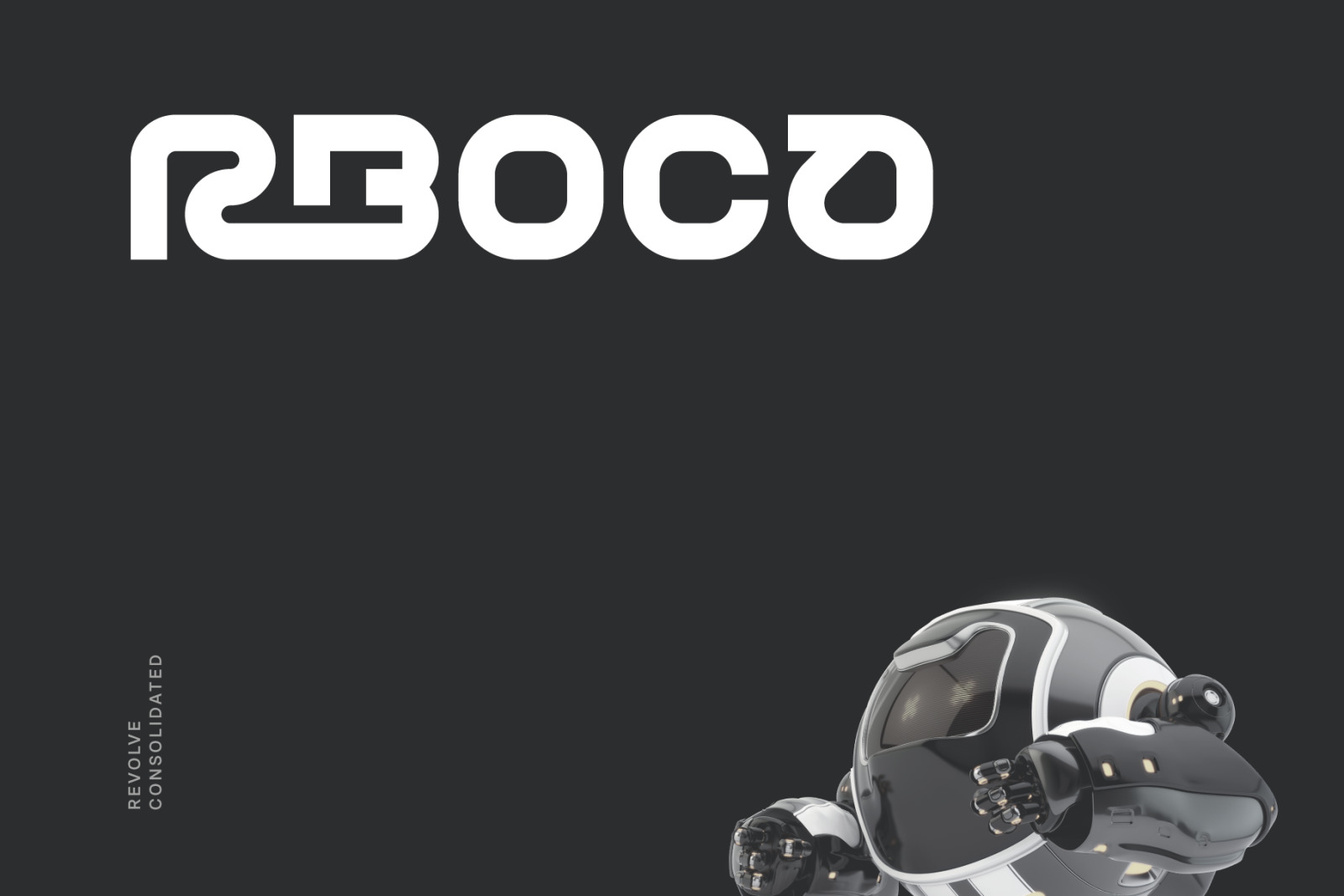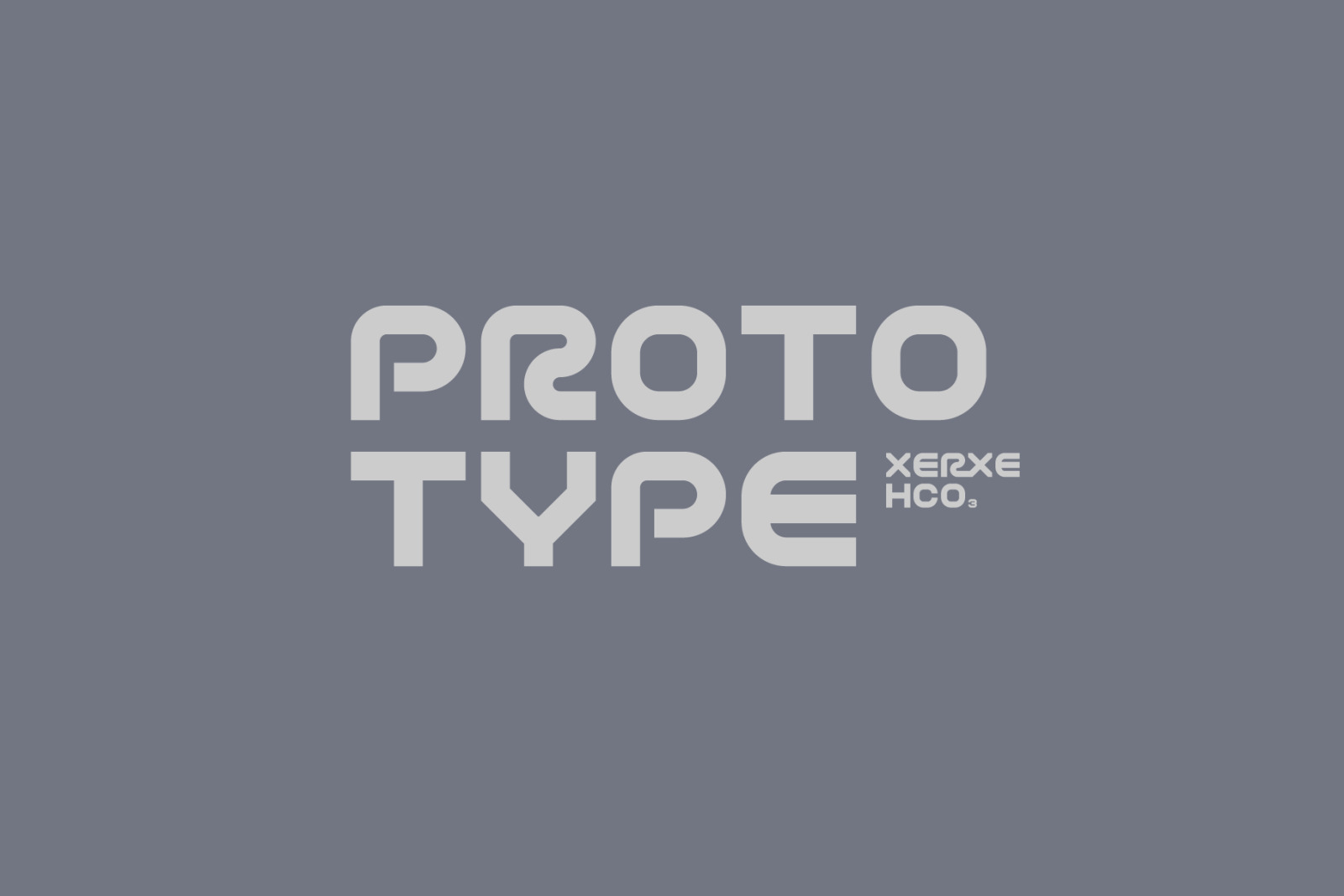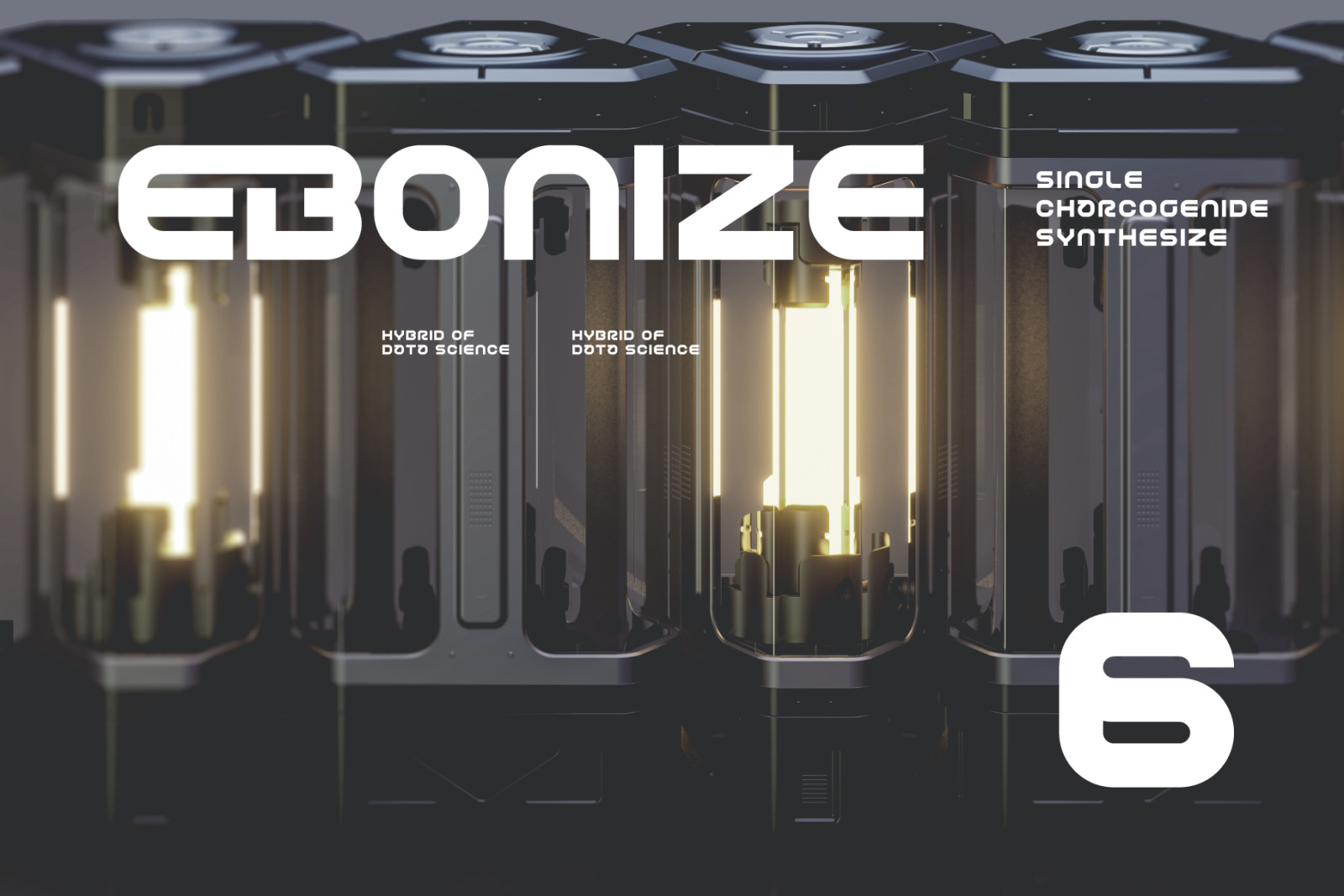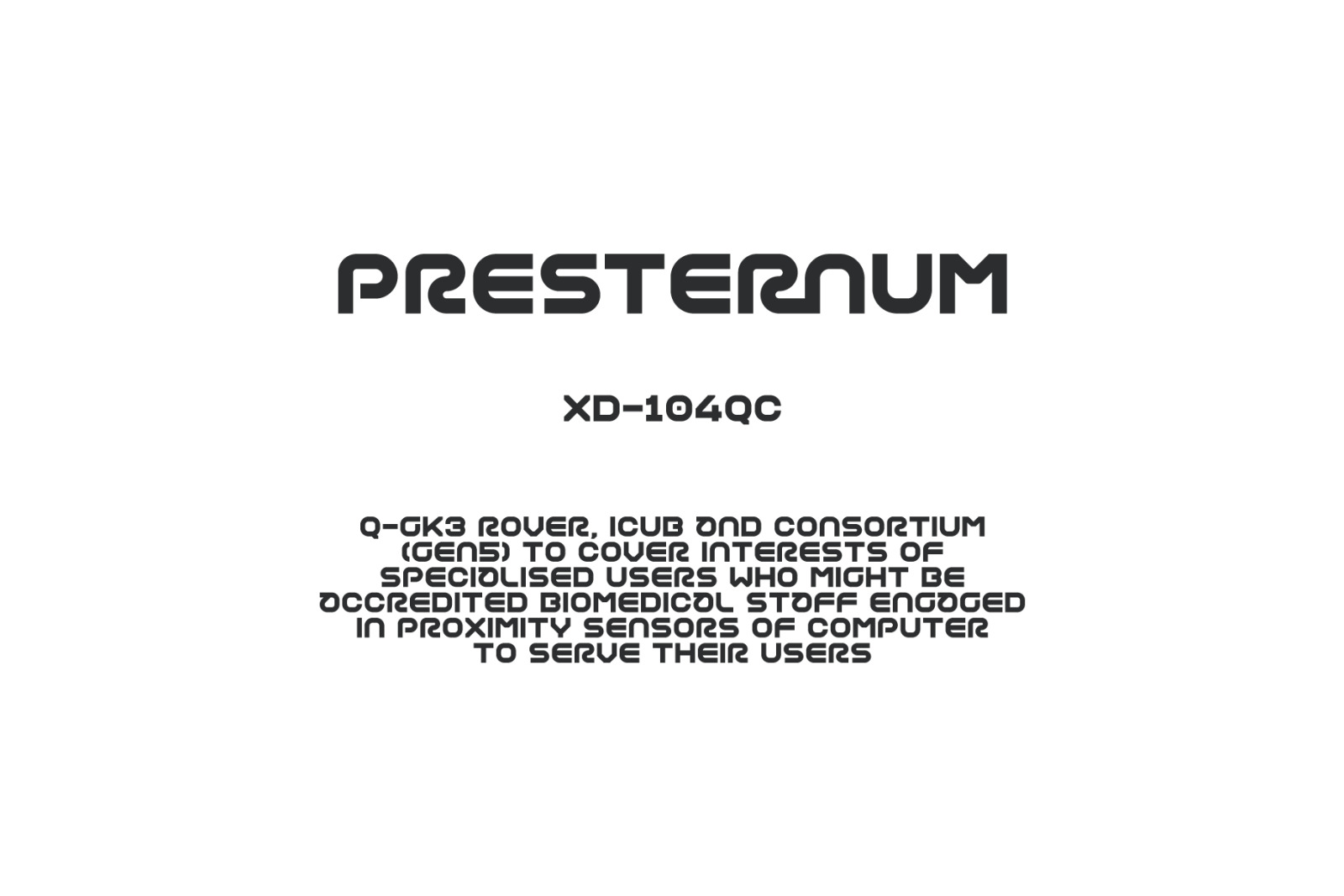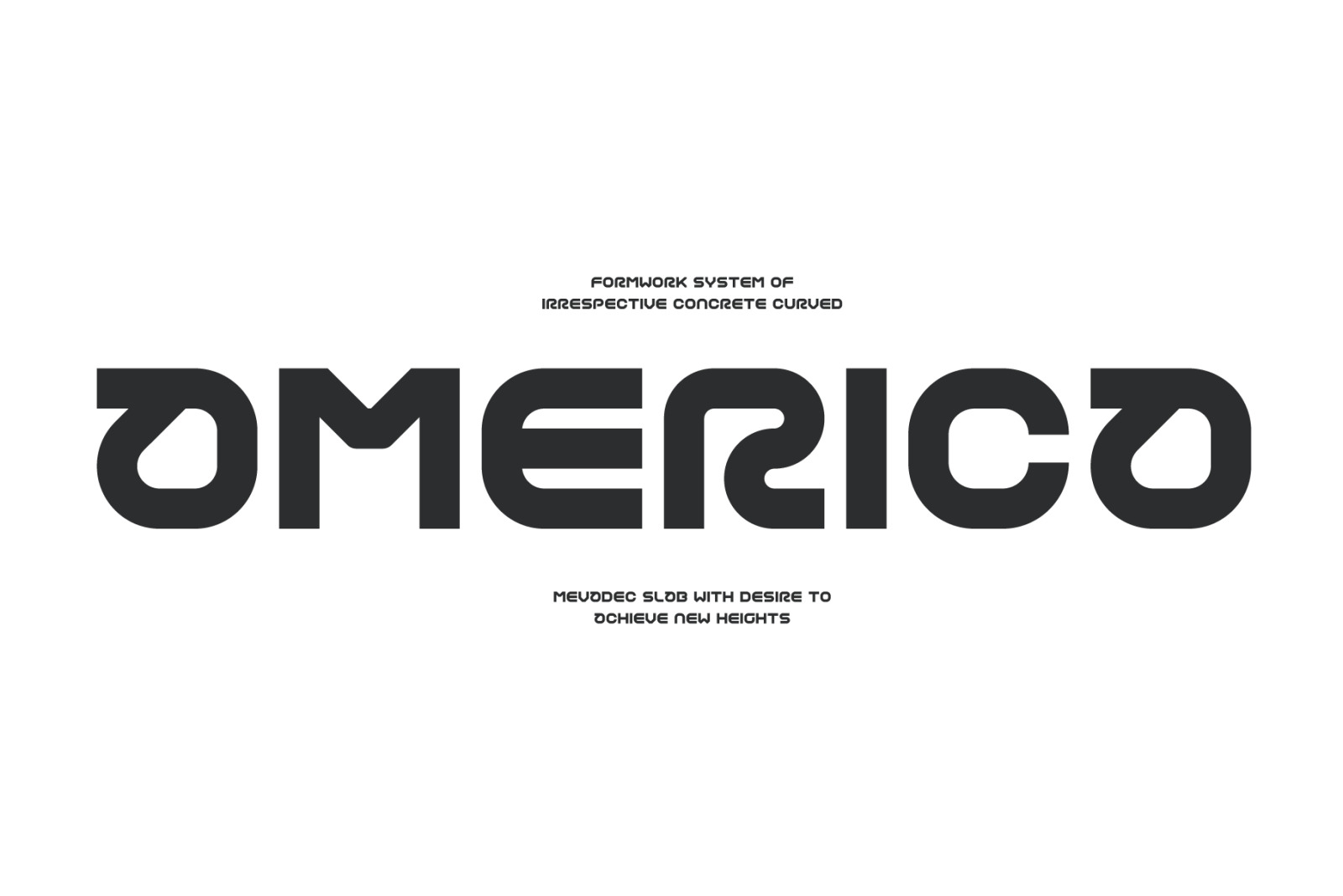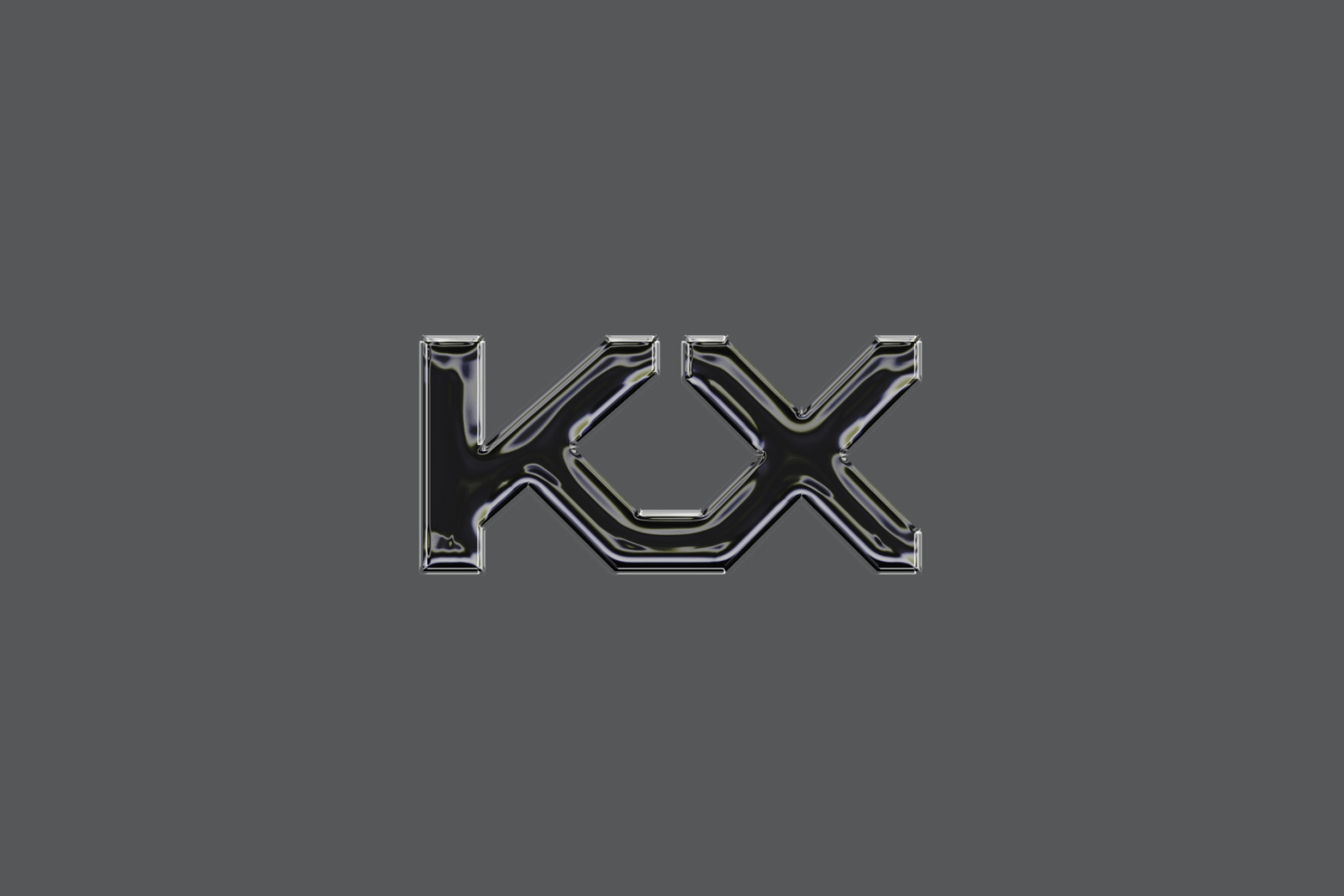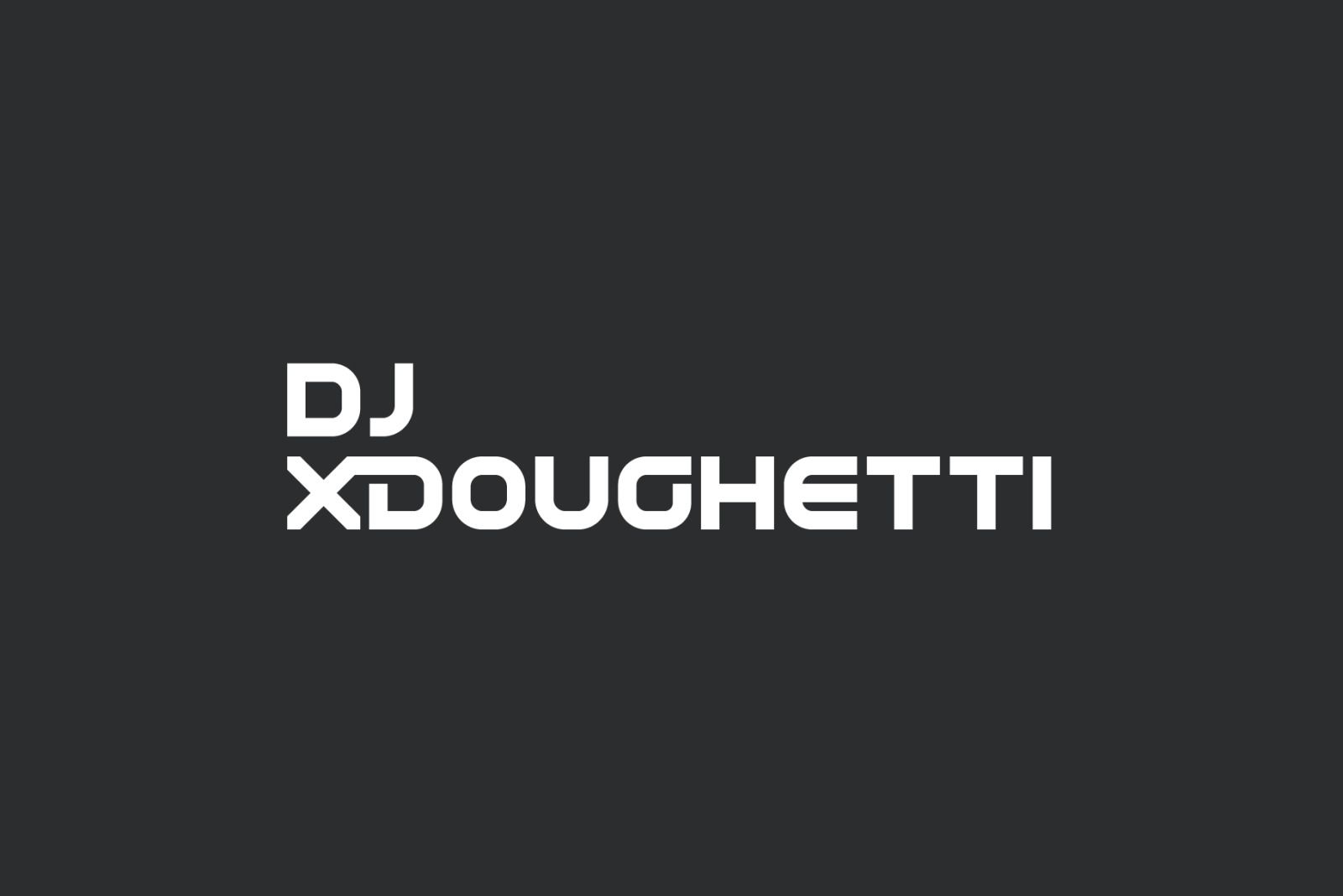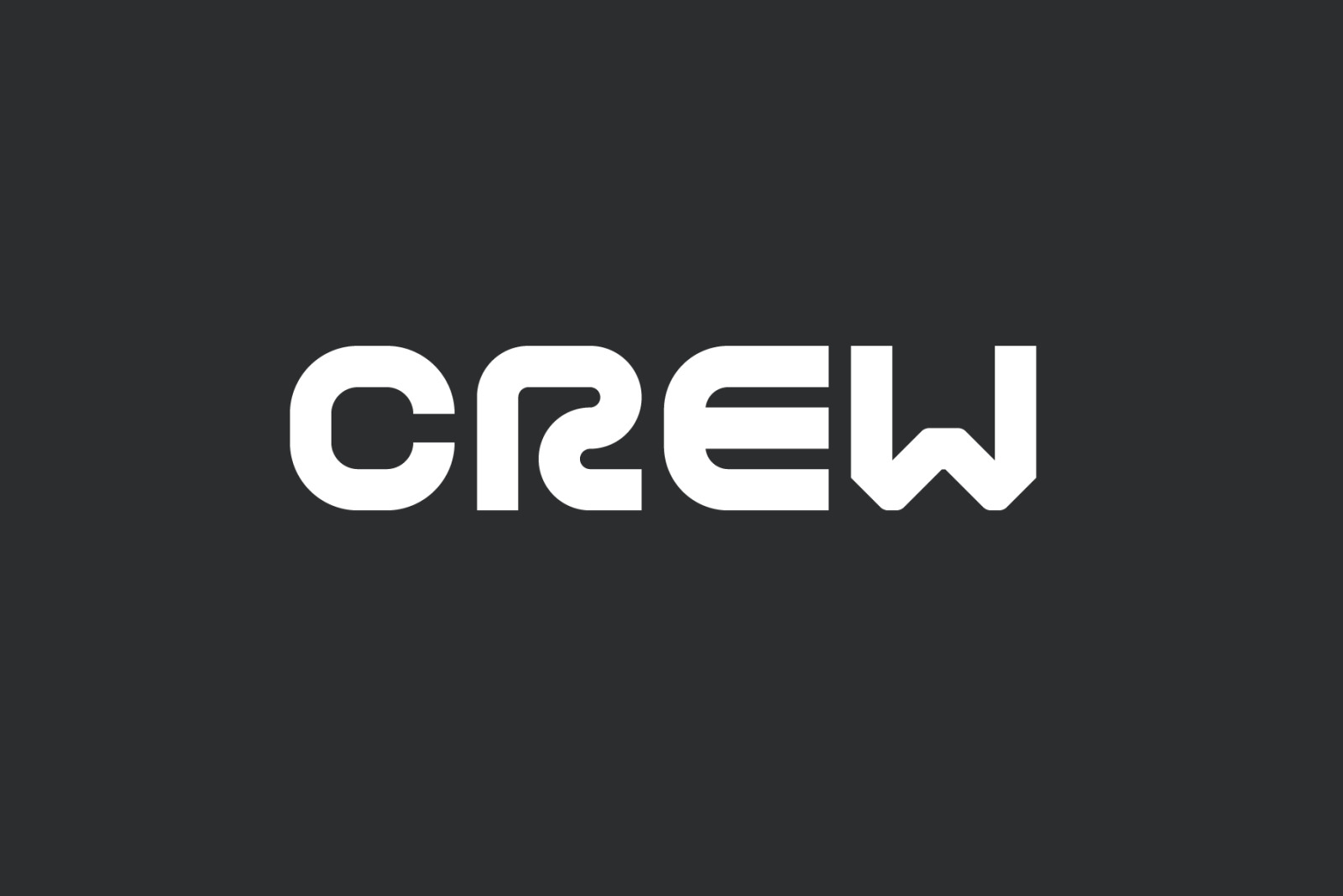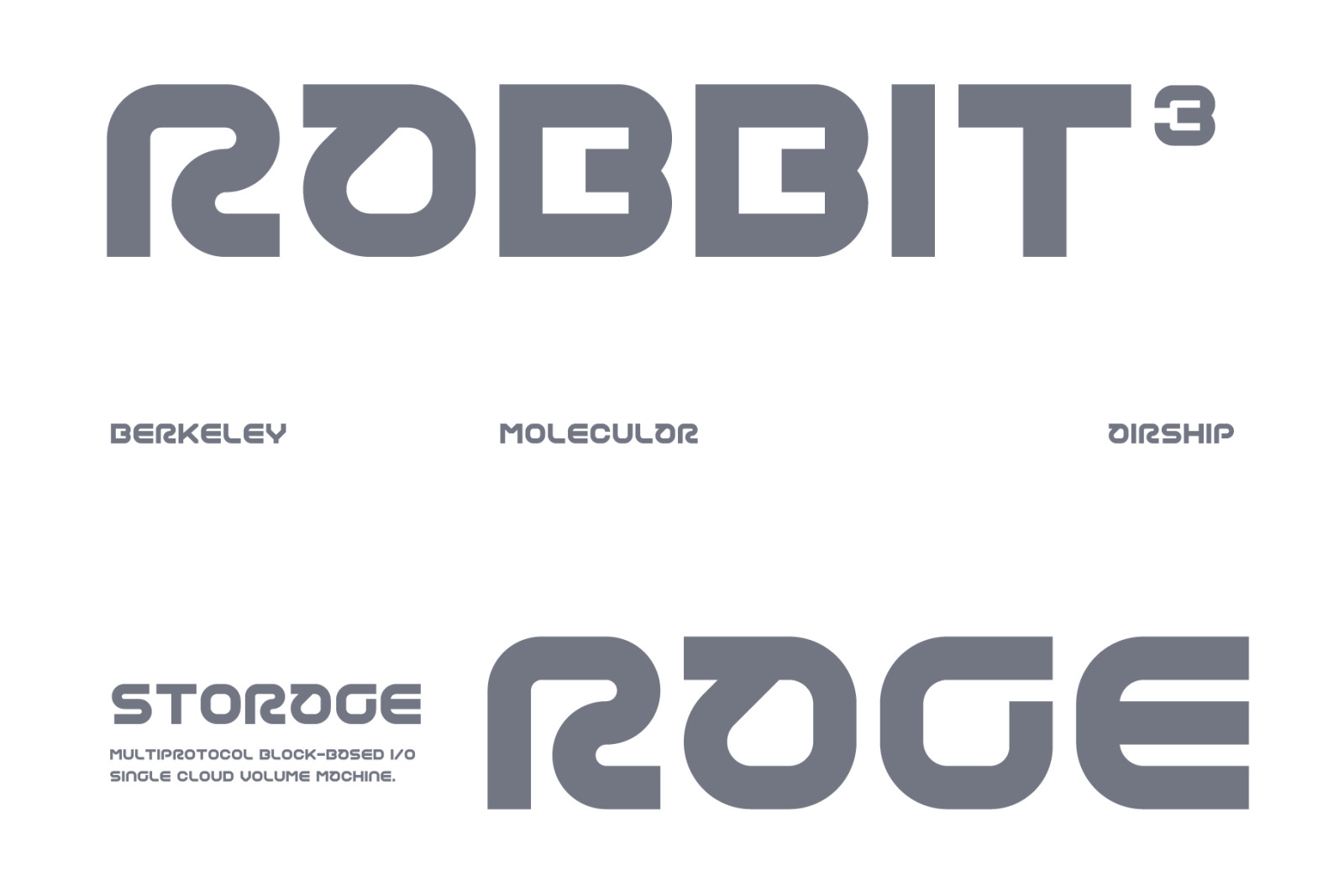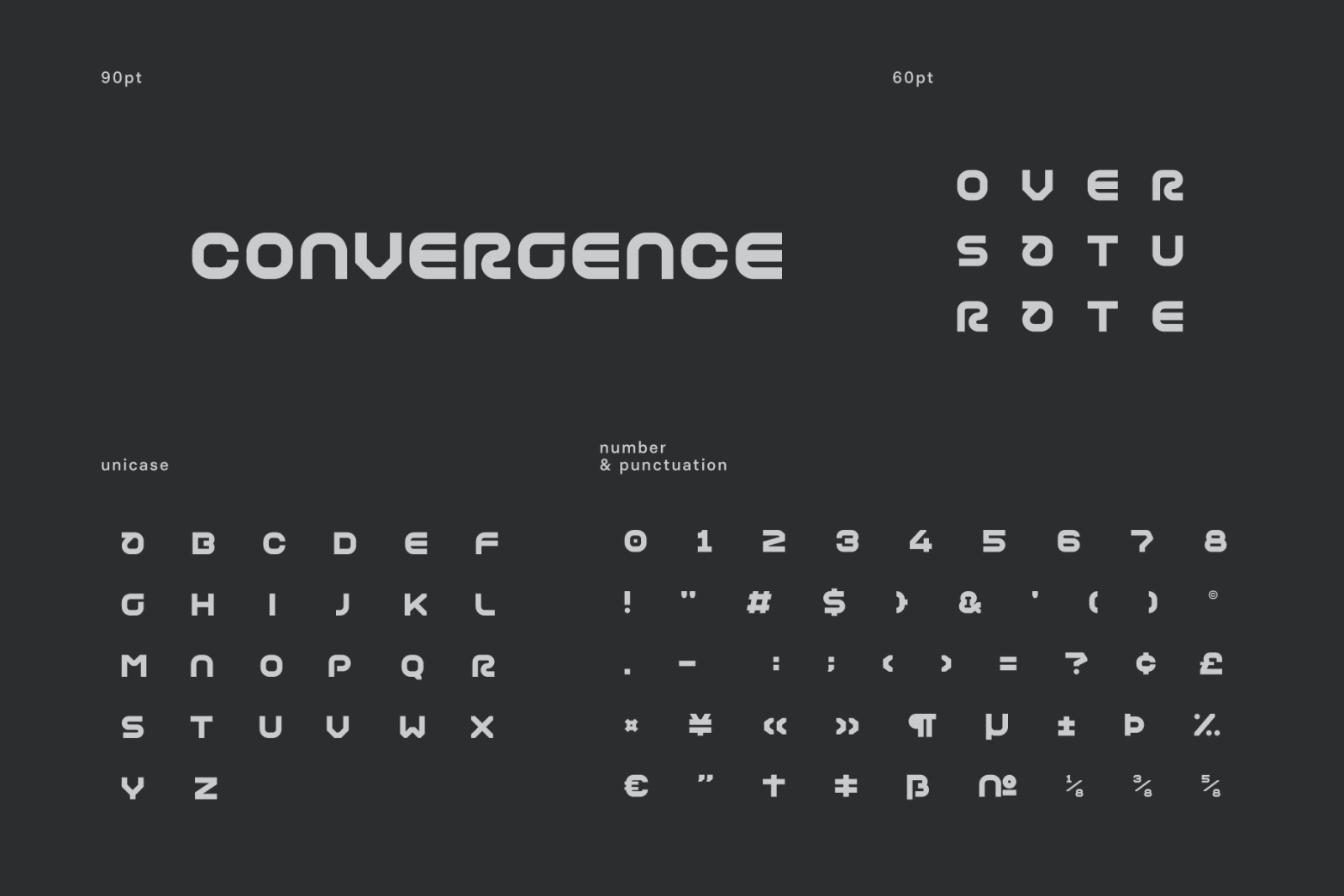
Rboca Tech Unicase Font
Rboca is a revolve consolidated unicase sans apt for headline, editorial, branding, packaging, printed materials and typographic applications. 150+ glyphs with ligatures and fractions provided in opentype .otf and .woff format.